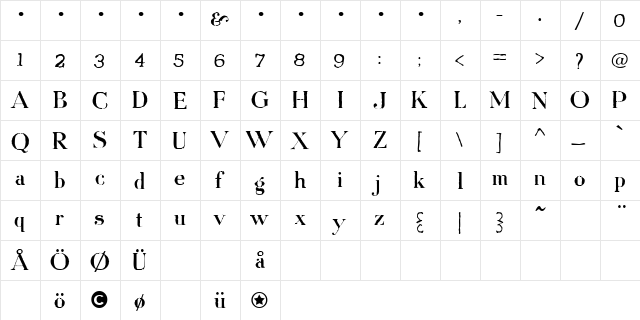
SchwingShift Regular
Design Context for SchwingShift Typeface
SchwingShift takes a measured approach to typography — its balanced proportions and neutral character make it a reliable workhorse for both digital and print work.